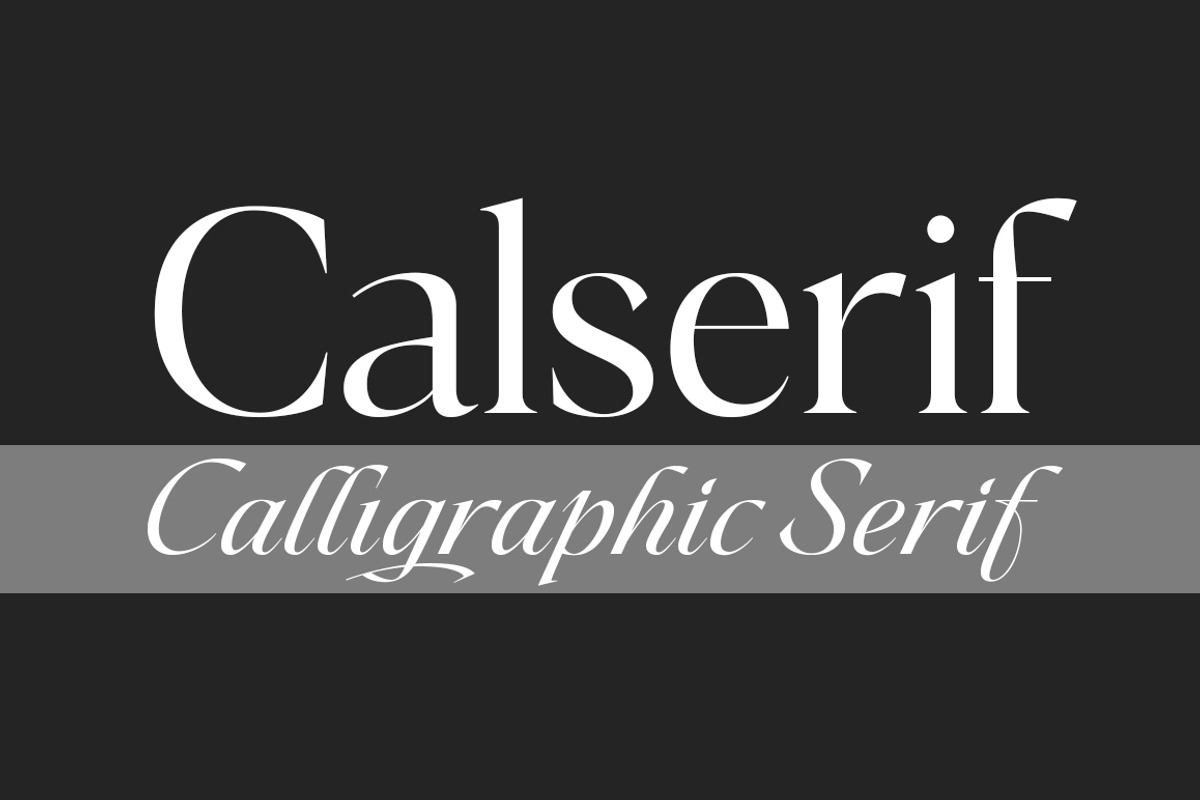
Calserif - Calligraphic Serif Free Download
Calserif - Calligraphic Serif Font Free Download is a refined and elegant typeface that combines the structure of classic serifs with the fluidity of calligraphy. Please note: you must purchase this font for commercial use, but you can test it through a free download. With its graceful curves, high contrast strokes, and sophisticated flair, Calserif is ideal for wedding invitations, branding, editorial layouts, packaging, and luxury-focused design.
This font evokes timeless beauty and handwritten artistry—making it perfect for projects that call for both tradition and creativity. Whether you're designing a romantic logo or crafting an upscale product label, Calserif - Calligraphic Serif Font Free Download brings elegance and expression to your typography. It’s fully compatible with Adobe Illustrator, Photoshop, Canva, and more, making it easy to incorporate into your workflow. Download it today for personal use and let your designs shine with the classic charm of Calserif.